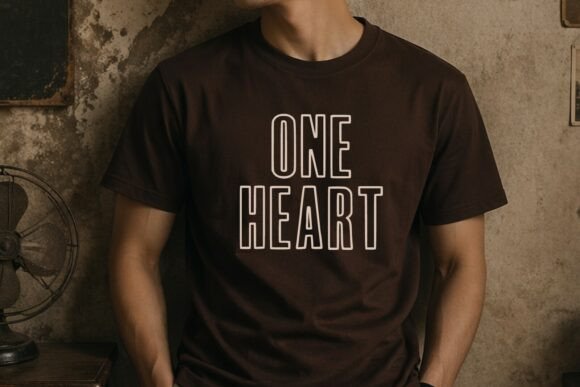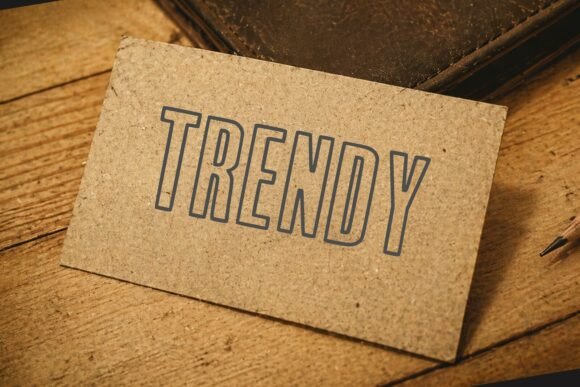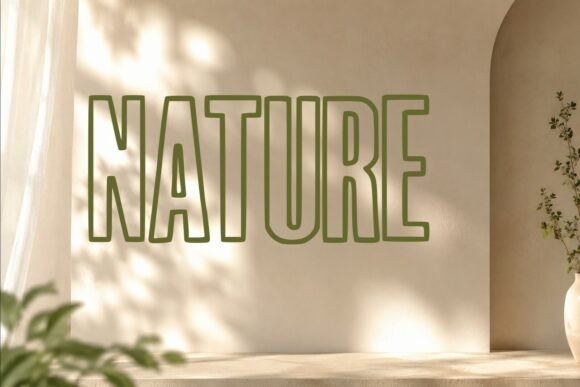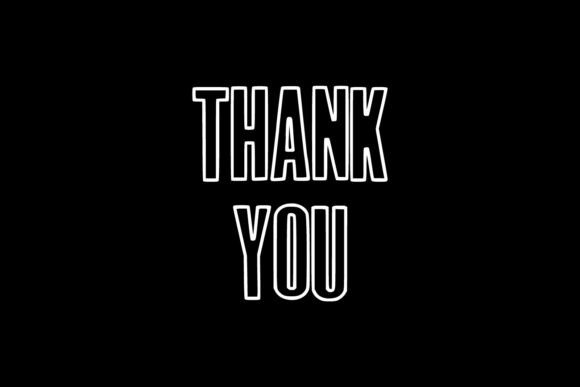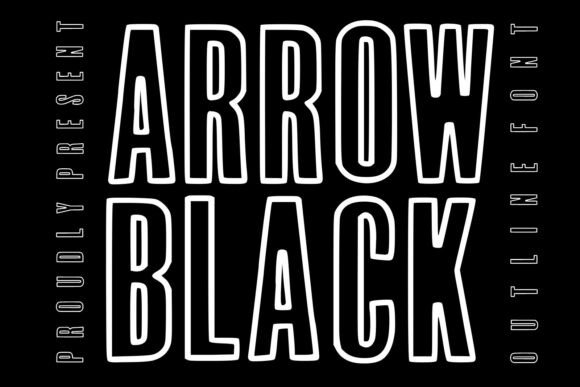
The Ultimate Guide to Arrow Black Font: A Modern and Bold Outline Display Typeface
I’ll never forget the time I was working on a project for a client who wanted a bold, eye-catching font to make their brand stand out. I scoured the internet for hours, trying to find the perfect one, but nothing seemed quite right. That was until I stumbled upon the Arrow Black Outline Font. Its modern and bold design immediately caught my attention, and I knew I had found the one. In this article, I’ll share my experience with this amazing font, its features, and how to use it to take your designs to the next level.
An Honest Review of Arrow Black Font
- ✨ Modern and bold design: The Arrow Black Outline Font has a sleek and contemporary look that’s perfect for making a statement.
- ✅ Excellent readability: Despite its bold design, the font remains highly legible, even at smaller sizes.
- ✨ Clean retro-inspired aesthetic: The font’s retro vibe is balanced with a clean and minimalist design, making it versatile for various projects.
- ✅ Strong geometric structure: The font’s geometric structure gives it a sturdy and dependable feel.
While the Arrow Black Outline Font is an excellent choice, there are a few things to keep in mind:
- ⚠️ Limited use in body text: Due to its bold design, this font may not be the best choice for long blocks of body text.
- 🤔 Requires careful color selection: The font’s outlined design can be sensitive to color choices, so be sure to select colors that provide sufficient contrast.
- Experiment with OpenType features and glyphs to add more style and personality to your text.
- Take advantage of stylistic alternates and glyphs to add more variety to your text.
The Designer Inspiration Behind Arrow Black Font
The Arrow Black Outline Font was designed with the goal of creating a modern and bold display typeface that’s both stylish and legible. The designer drew inspiration from retro aesthetics and geometric shapes to create a font that’s both nostalgic and contemporary.
Q: What type of projects is Arrow Black Font best suited for?
A: Arrow Black Font is ideal for posters, branding, logos, packaging, headlines, apparel, and editorial projects.
Q: Can I use Arrow Black Font for body text?
A: While possible, Arrow Black Font is not recommended for long blocks of body text due to its bold design.
Q: Is Arrow Black Font available in different weights or styles?
A: Yes, Arrow Black Font comes in a range of weights and styles, allowing you to experiment with different looks and feels.